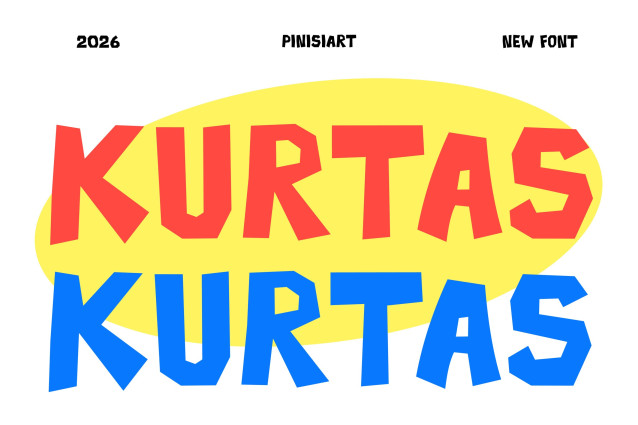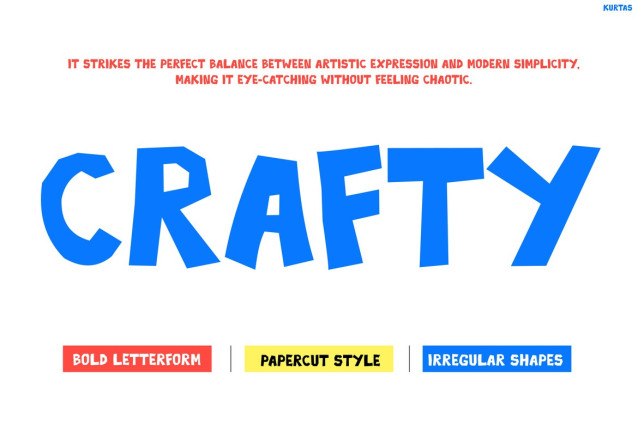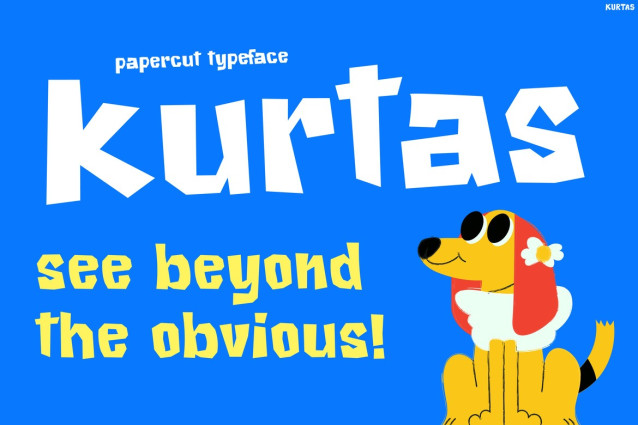
Kurtas Font
Kids Font Kurtas brings playful imagination to life with bold handcrafted letterforms that celebrate curiosity, creativity, and self-expression. Instead of using perfectly uniform shapes, Kurtas embraces charming irregular details that give every word a lively and artistic personality. Moreover, its chunky forms and soft edges create a friendly look that instantly grabs attention.
As a result, every headline feels energetic, approachable, and full of character. At the same time, the bold construction keeps text clear and easy to read across both digital and printed designs. Furthermore, Kurtas helps transform simple ideas into colorful visual stories that inspire creativity in every project.